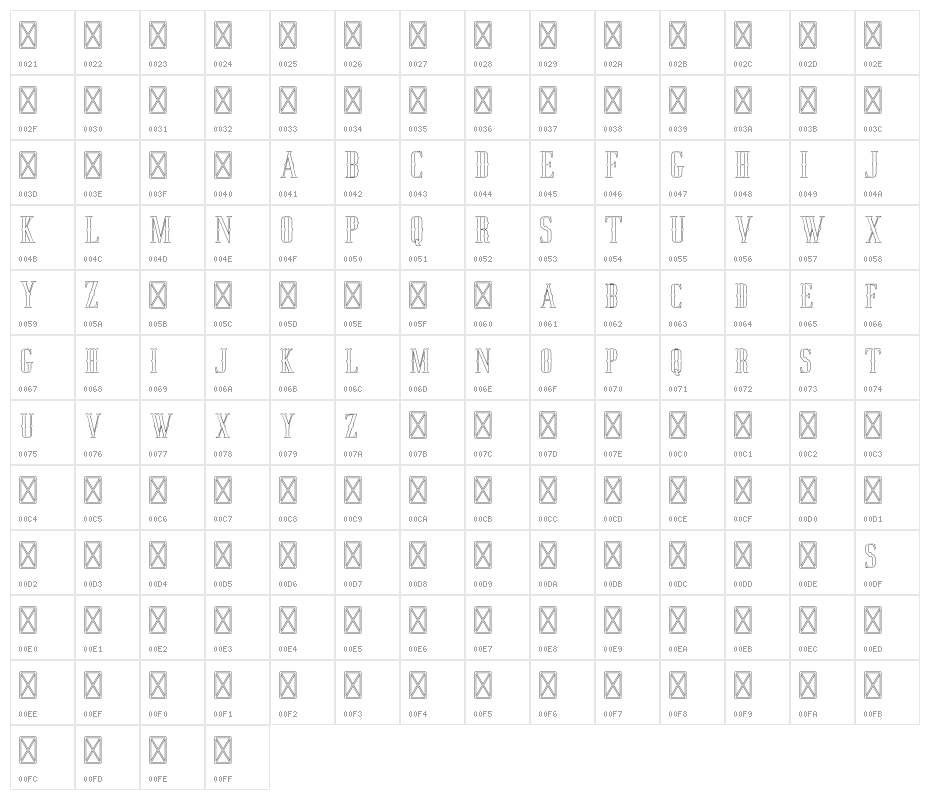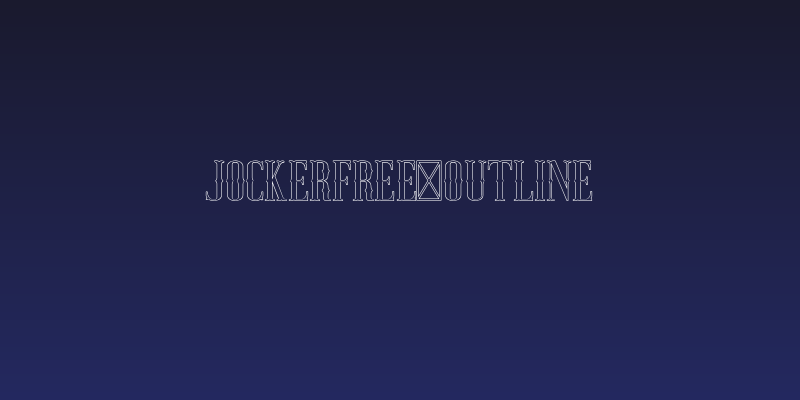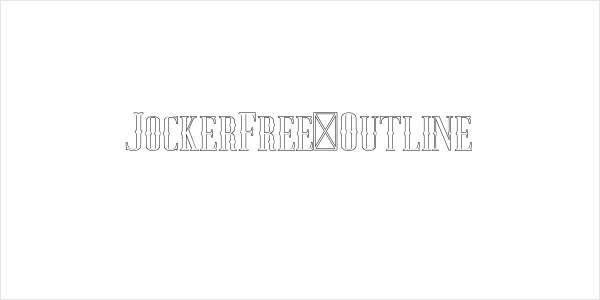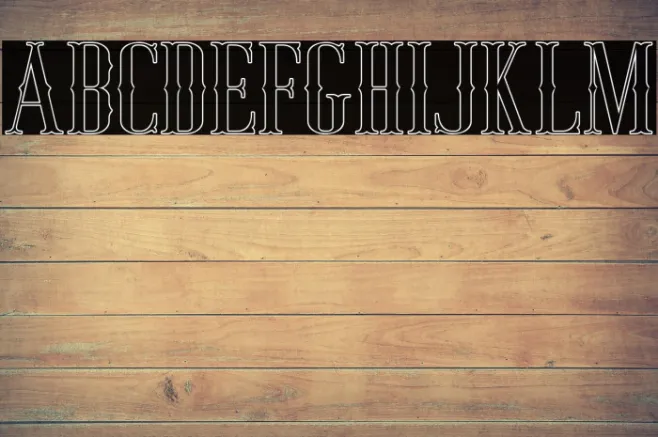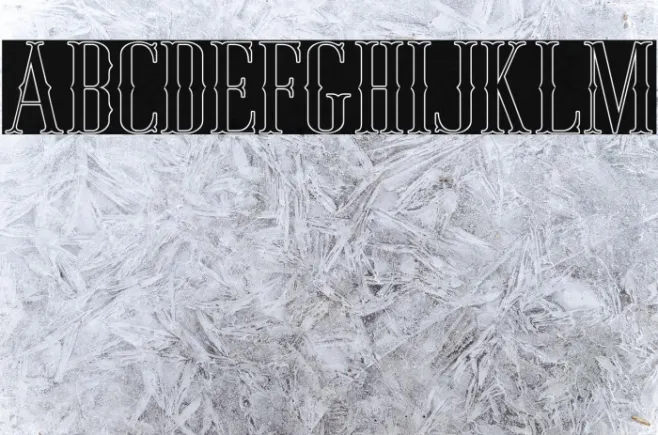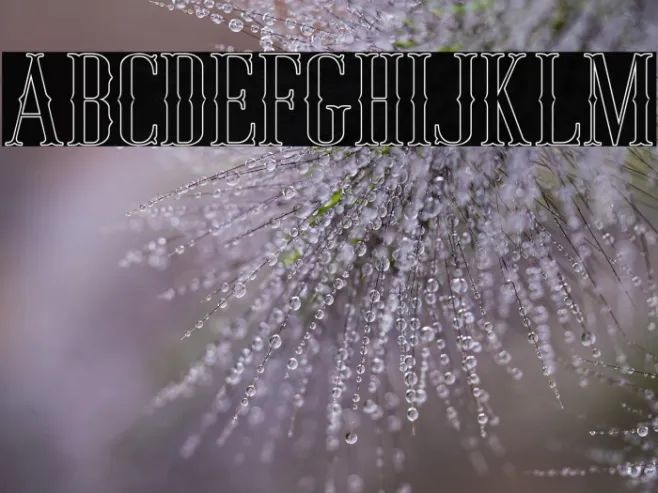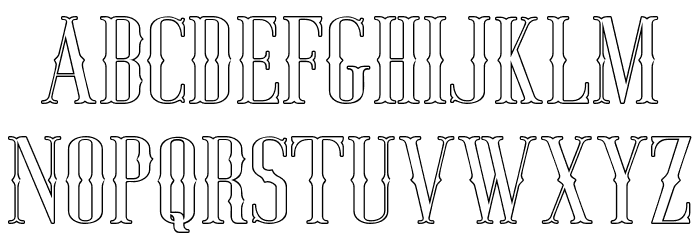
JockerFree-Outline Font
JockerFree-Outline Description
This font features a unique outline style with a decorative and bold appearance. The uppercase letters are designed with a distinct, angular structure, giving them a striking and impactful look. The font lacks lowercase letters and numbers, focusing solely on uppercase characters, which enhances its decorative nature. The outlines are consistent and sharp, creating a sense of uniformity and balance across the alphabet. This font is ideal for projects that require a bold and eye-catching display, such as posters, headlines, or branding materials. Its distinctive style makes it suitable for creative and artistic applications where a strong visual impact is desired.